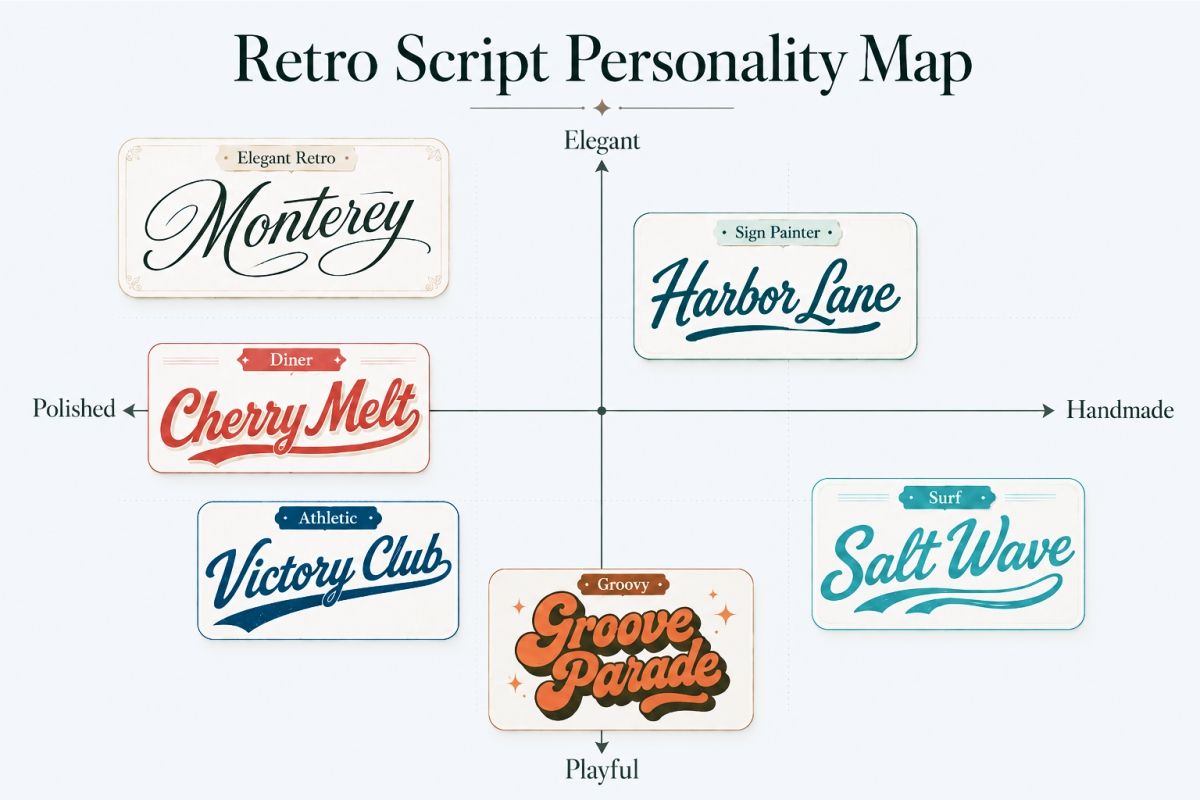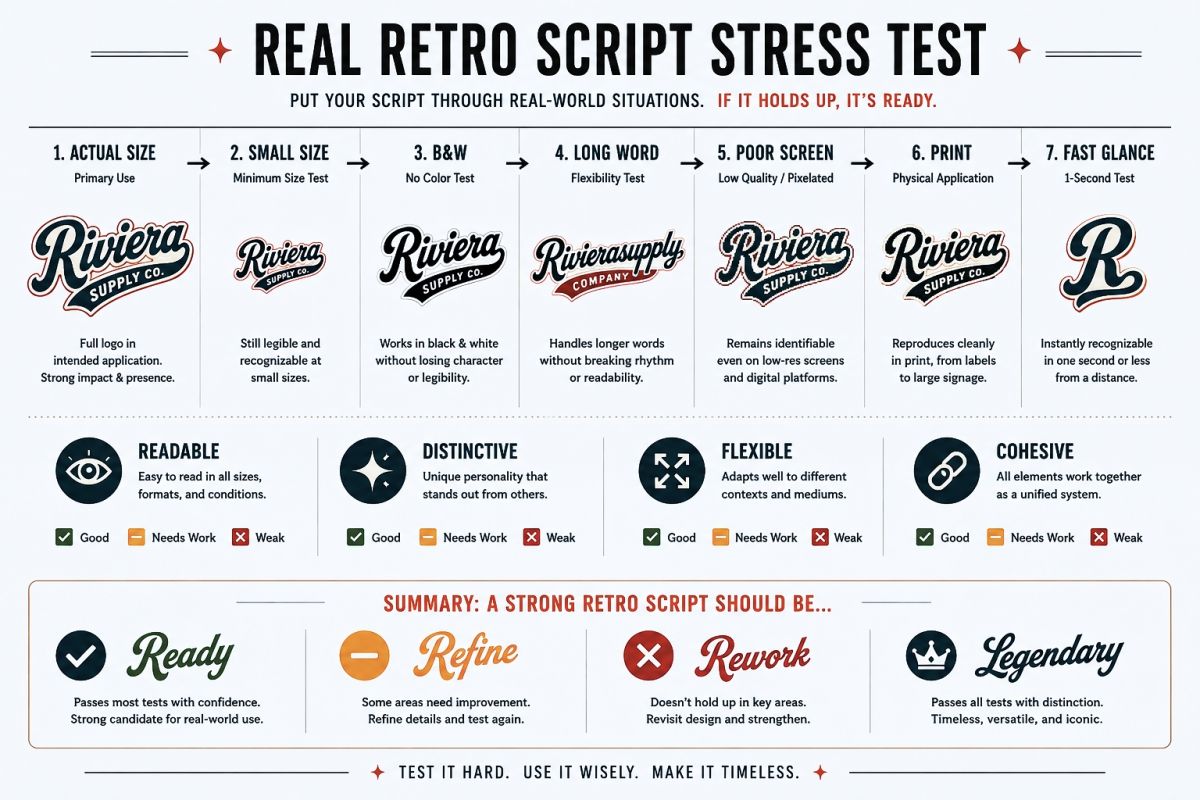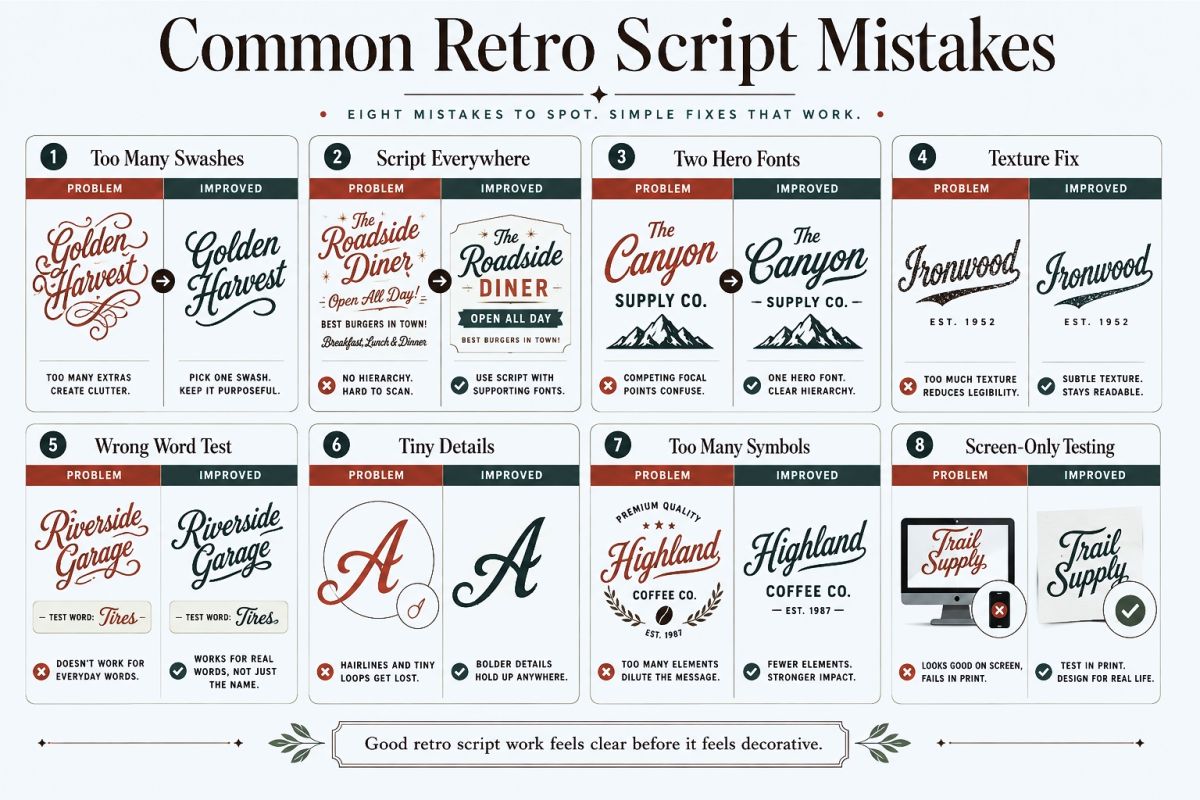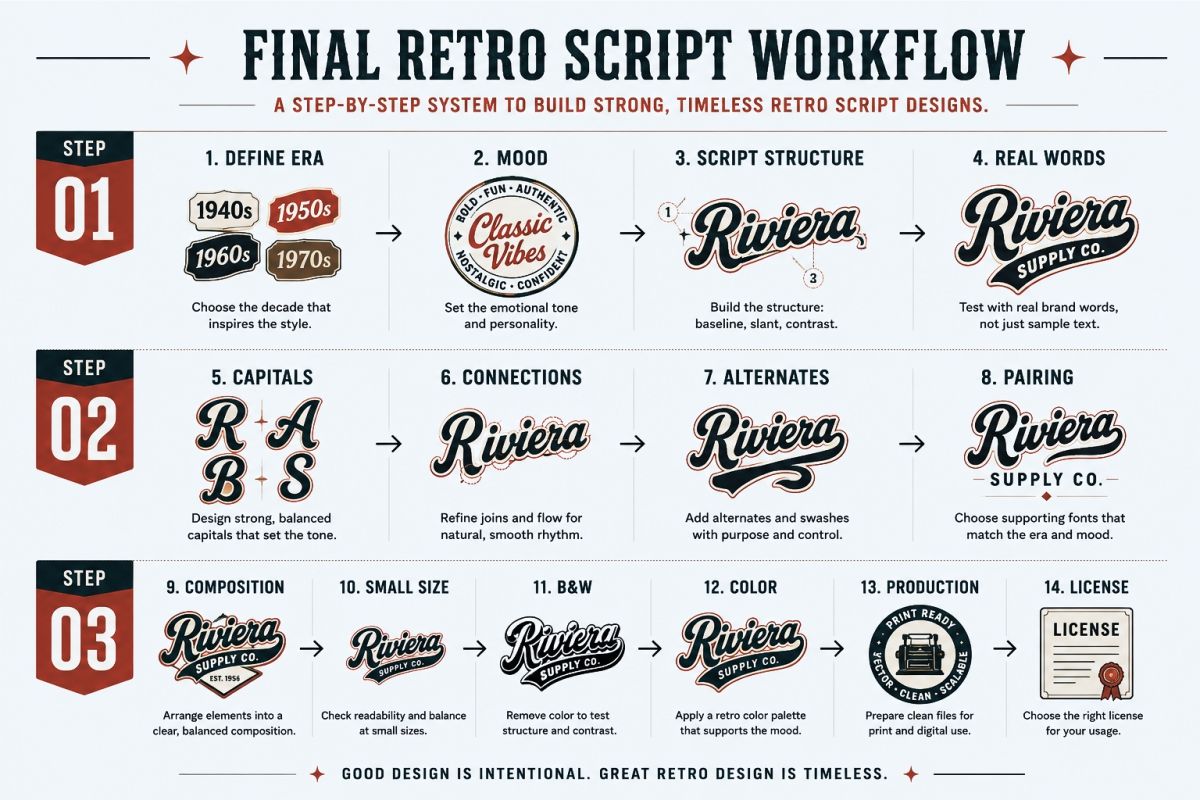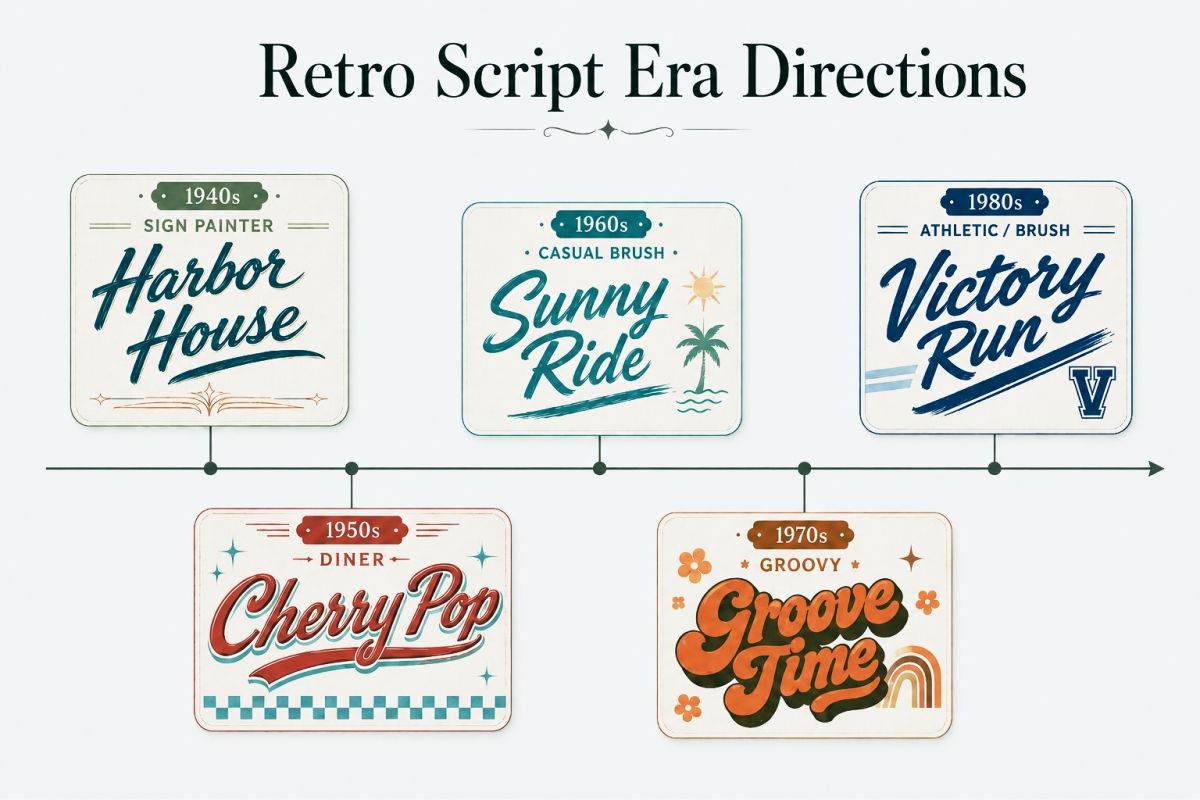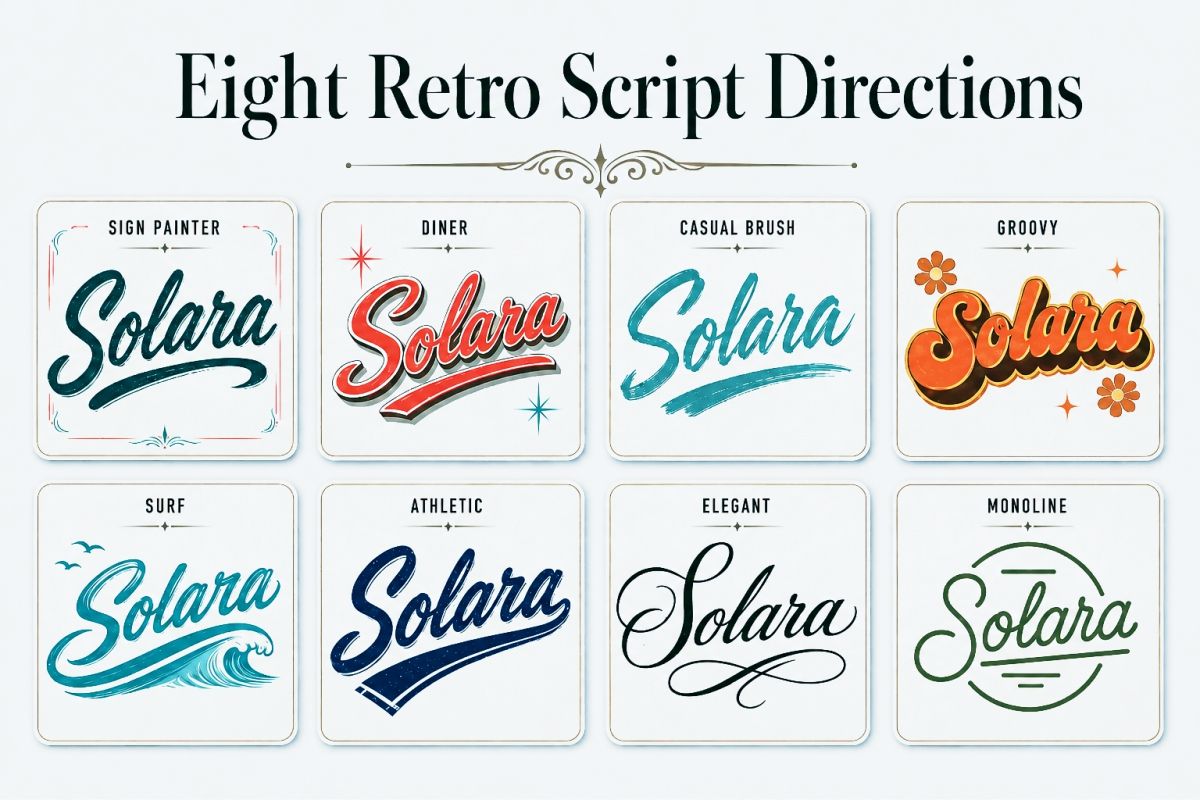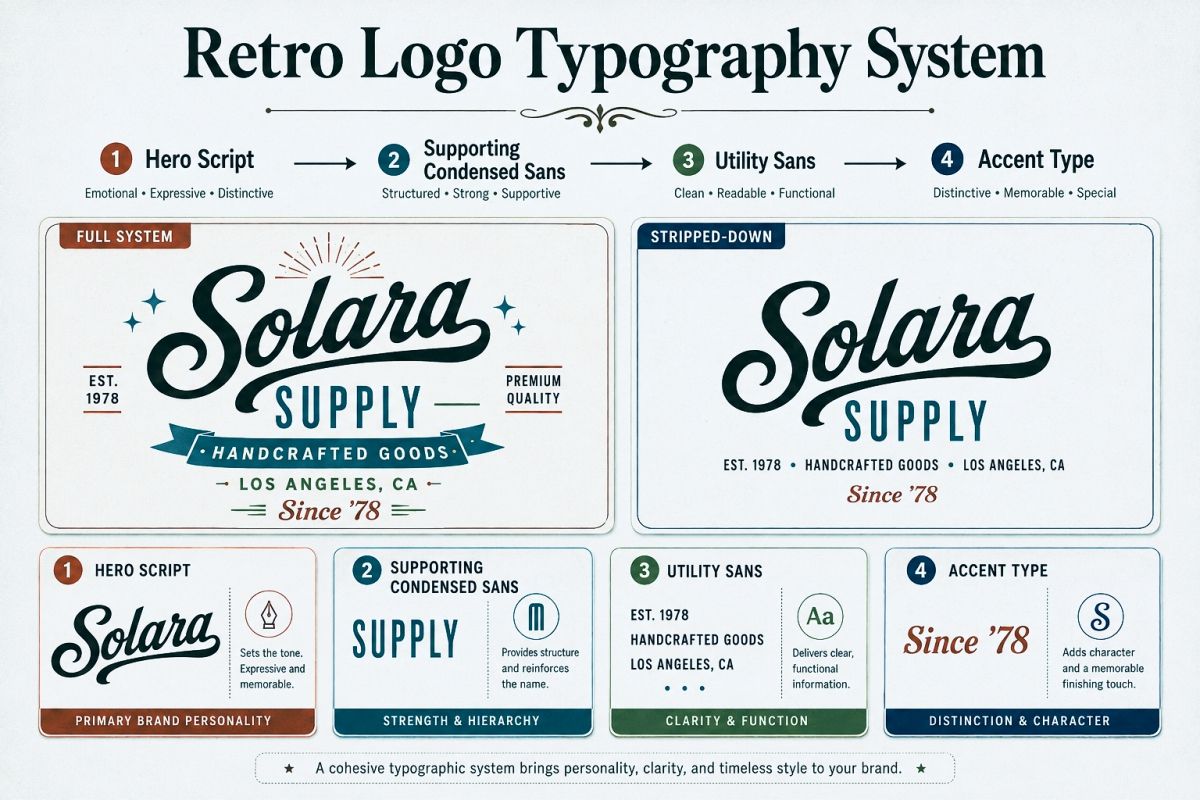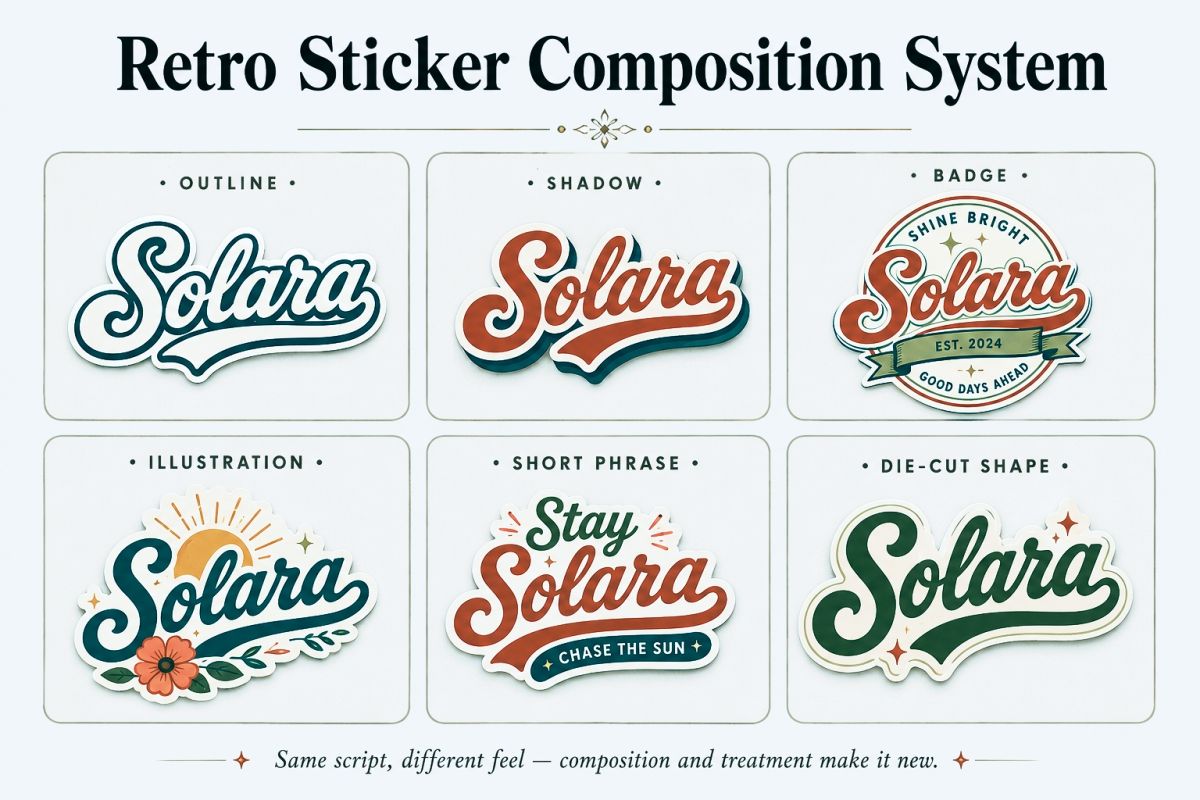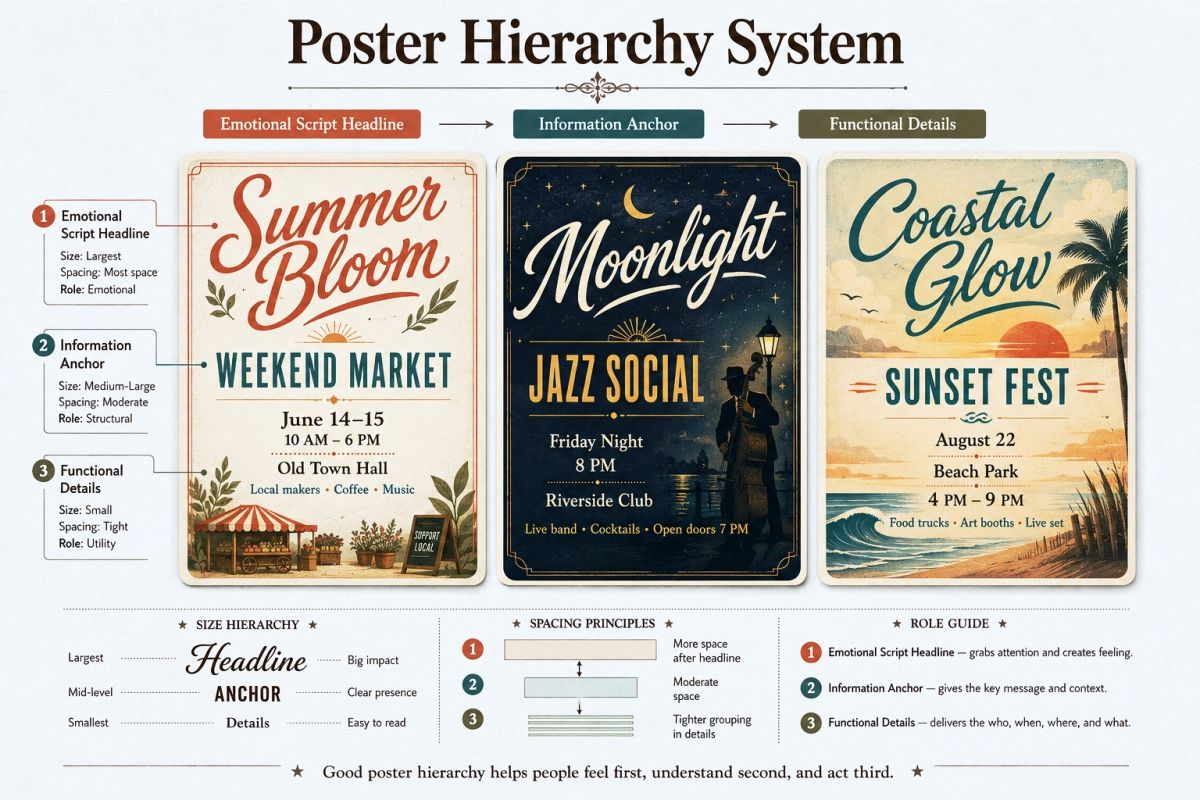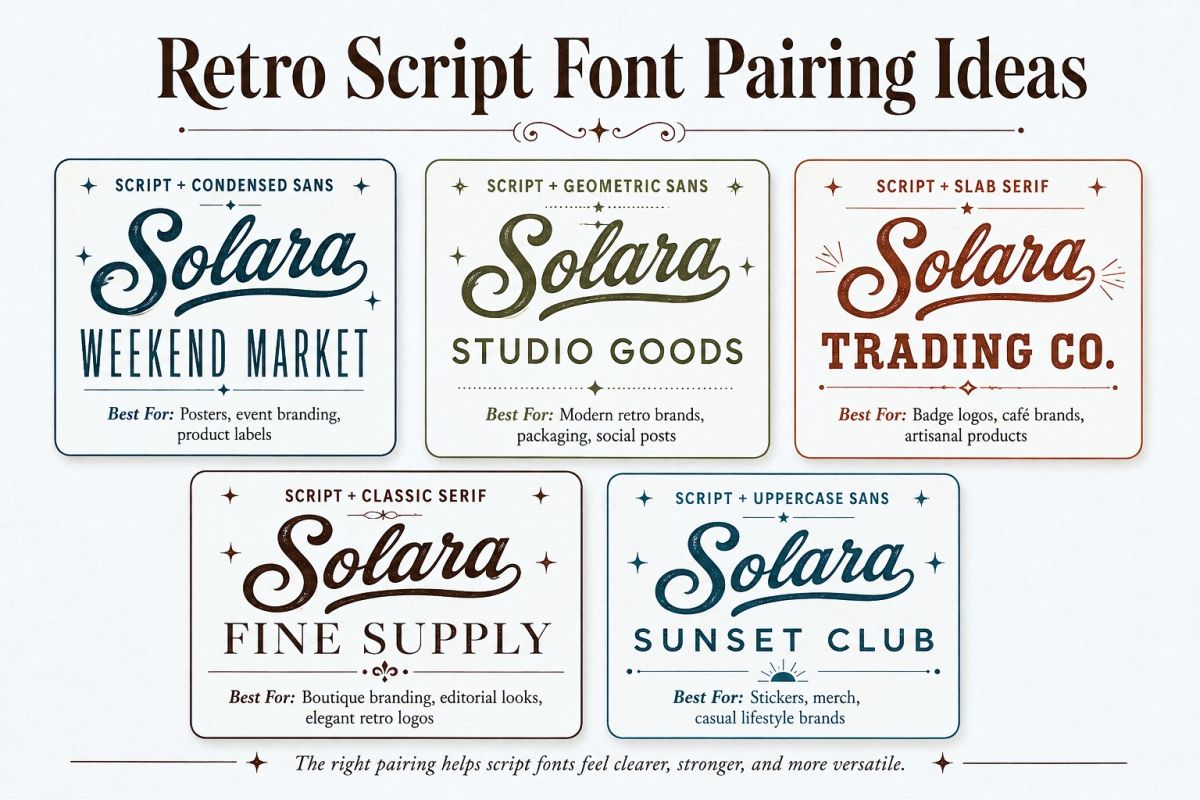
Retro Script Font Ideas for Nostalgic Logos, Stickers, and Posters
Retro script fonts can make a design feel familiar before you even understand why.
Maybe it reminds you of an old roadside sign. A soda label. A bowling shirt. A surf shop logo. Or the lettering on packaging you might have seen decades ago.
That emotional shortcut is what makes retro script so useful.
But it is also where things can go wrong.
A script font does not automatically become “retro” because it has swashes. And adding cream, orange, and brown will not fix lettering that feels disconnected from the era you are trying to reference.
When I look for retro script font ideas, I prefer to think about the personality of the lettering first. Then I consider the decade, composition, supporting type, color, and application.
That approach gives you much more control.
It also helps your logo, sticker, or poster feel nostalgic without looking like a generic vintage template.
Retro Script Personality Map
What Actually Makes a Script Font Feel Retro?
Retro typography is usually built from several signals working together.
The font is only one of them.
A script typeface may bring the strongest personality, but its surrounding design tells you how to interpret that personality.
A useful way to think about it is:
Letterform + Era Cue + Composition + Supporting Type + Production Style = Retro Direction
For example, imagine the word Sunset in a thick connected script.
Pair it with condensed sans-serif text, an oval badge, cream and dark red, and slightly imperfect print texture. Suddenly it can feel like a 1950s roadside brand.
Take the same script and combine it with rounded psychedelic lettering, warm orange, dusty pink, and curved lines. Now it starts leaning toward the 1970s.
The script did not completely change.
The context did.
That is why choosing a retro font by appearance alone can be limiting.
Instead, look at the whole visual sentence.
Start With an Era, Not a “Vintage” Filter
One of the easiest ways to make retro typography more convincing is to narrow the reference.
“Vintage” is too broad.
Even “retro” covers many very different visual languages.
A 1940s sign-painted script does not communicate the same feeling as a bubbly 1970s script or an energetic 1980s brush style.
I would divide the territory into a few practical directions.
Retro Script Era Directions
1. Sign-Painter Script
Think confident strokes, connected letters, controlled slant, and occasional flourishes.
This direction works especially well for:
• restaurants;
• cafés;
• barbershops;
• automotive brands;
• handmade products;
• breweries;
• local businesses.
It feels crafted rather than overly polished.
The best examples usually have enough weight to survive on signage and packaging.
2. 1950s Diner Script
This style feels cleaner and more optimistic.
You might see smoother connections, rounded terminals, a strong baseline, and a generous capital letter.
Try it for:
• diner-inspired logos;
• food packaging;
• ice cream branding;
• soda graphics;
• apparel;
• nostalgic event posters.
Add a condensed sans or simple block font and the era becomes much clearer.
3. Casual Mid-Century Brush Script
Not every retro script needs perfect curves.
A looser brush structure can feel lively and human.
I like this direction when a brand needs nostalgia without looking too luxurious.
It works nicely for coffee packaging, casual food brands, merchandise, stickers, and lifestyle graphics.
4. 1970s Groovy Script
This is where the personality can become much louder.
Letters may feel rounder. Heavier. Softer. Sometimes slightly inflated.
The script can sit inside waves, arches, rainbows, flowers, or distorted badge shapes.
This direction is useful for:
• music graphics;
• festival posters;
• apparel;
• stickers;
• beauty products;
• creative businesses;
• lifestyle branding.
Be careful with decoration, though.
You usually need fewer retro elements than you think.
5. Surf and Beach Script
A relaxed script can immediately suggest coastal nostalgia.
Look for broad movement, energetic capitals, and a casual hand-lettered rhythm rather than formal calligraphy.
Try it with small uppercase supporting text and simple illustrated elements.
This can work for surf brands, beach cafés, summer merchandise, travel graphics, and tropical packaging.